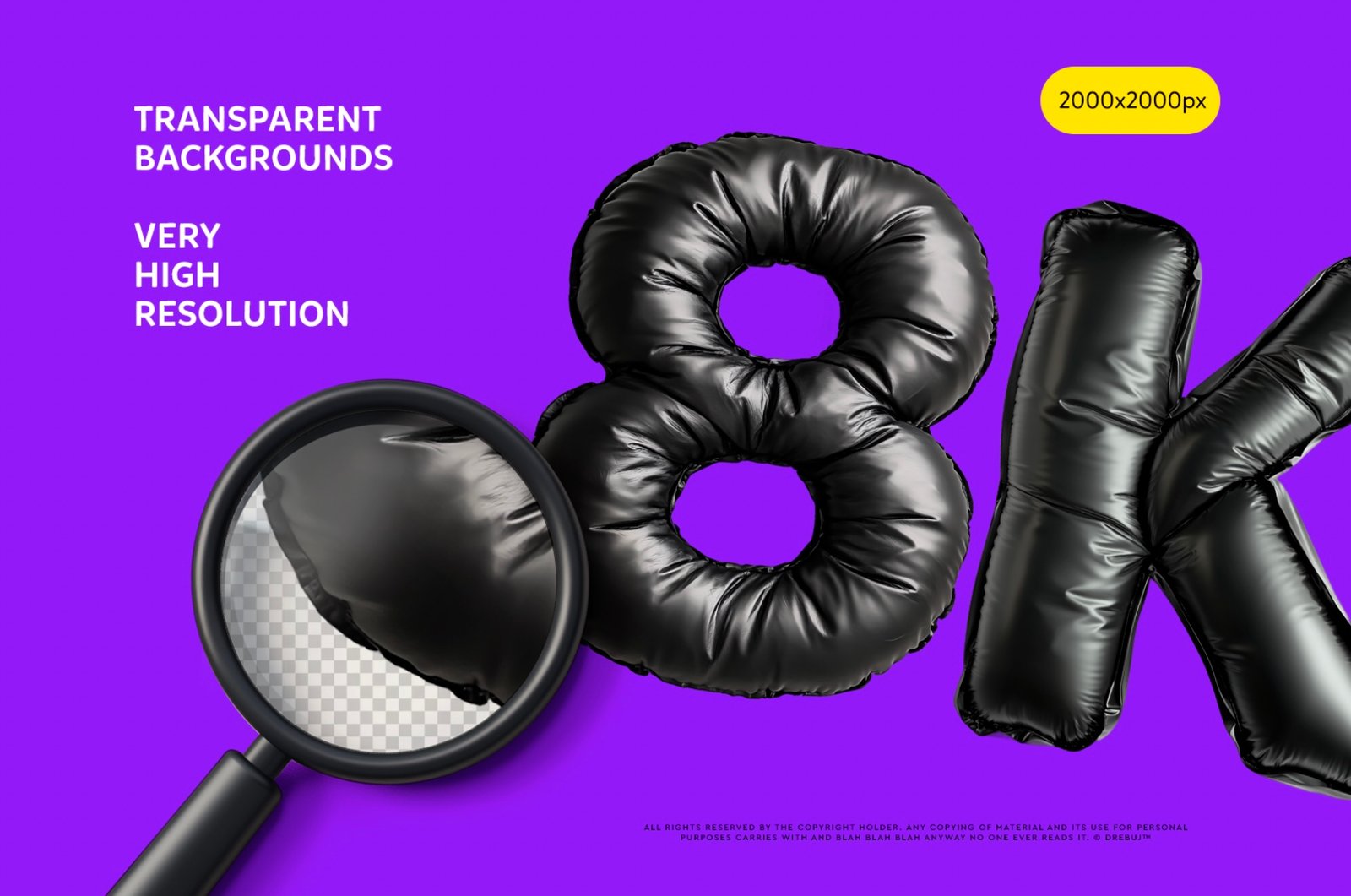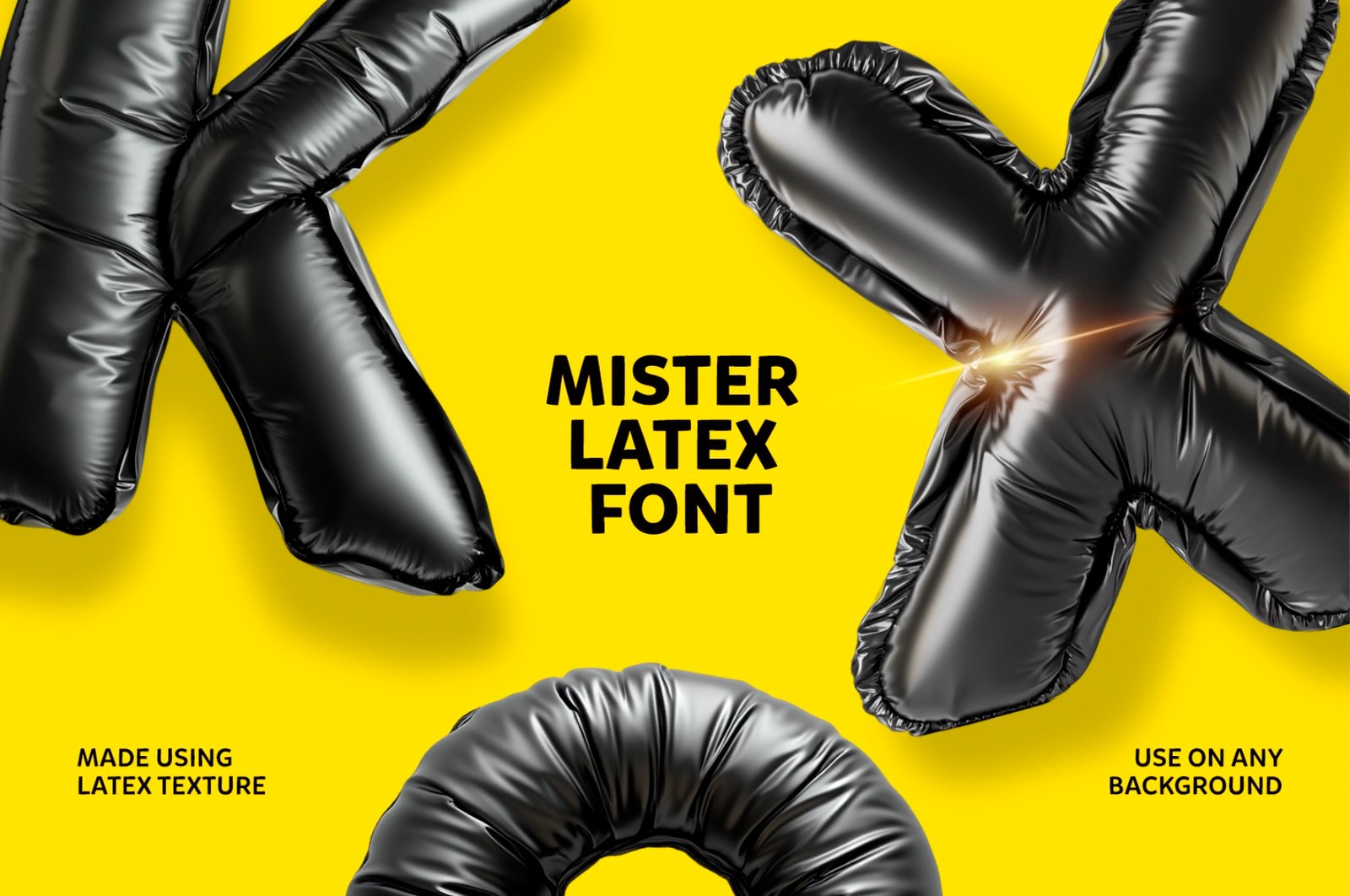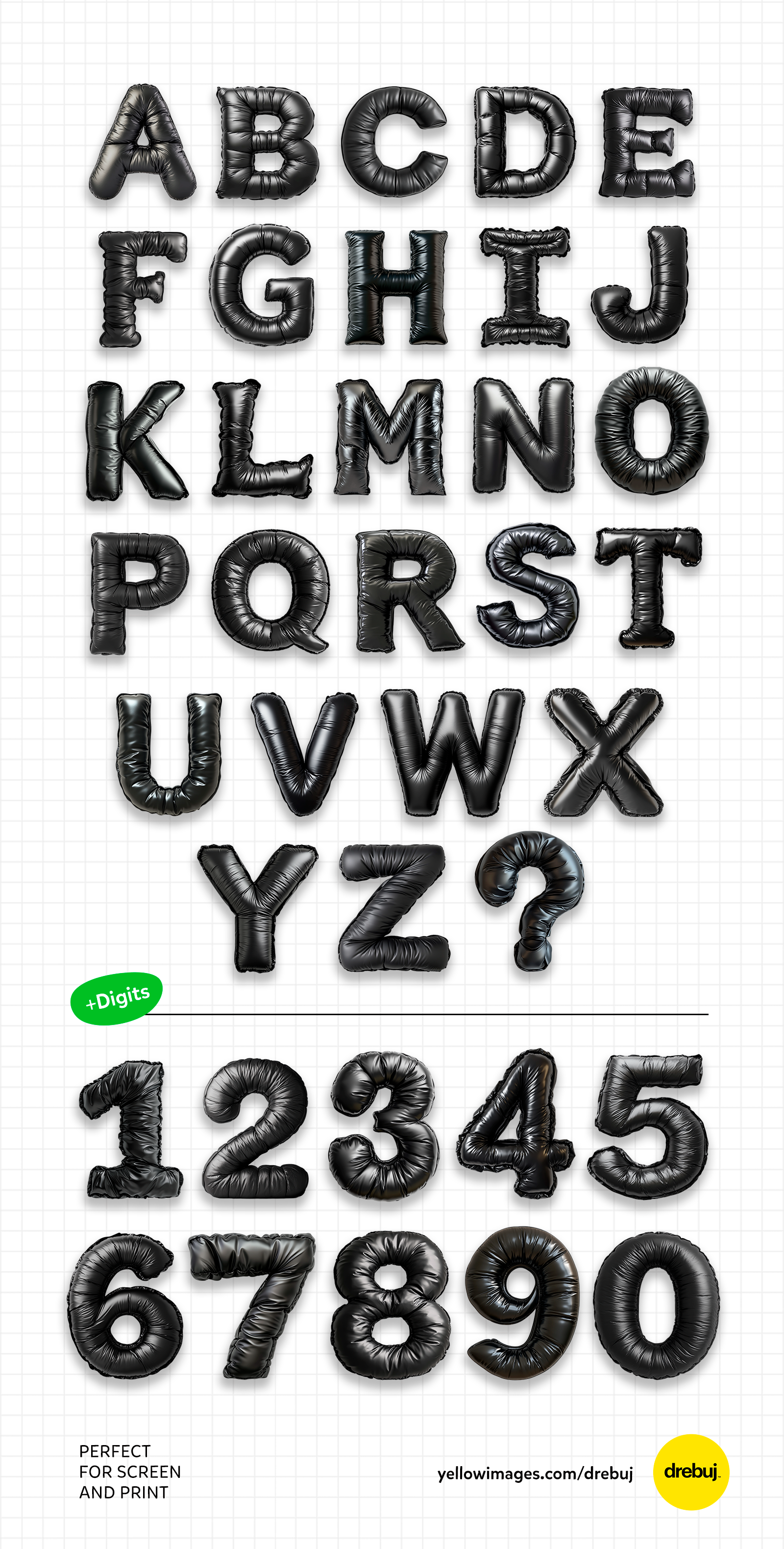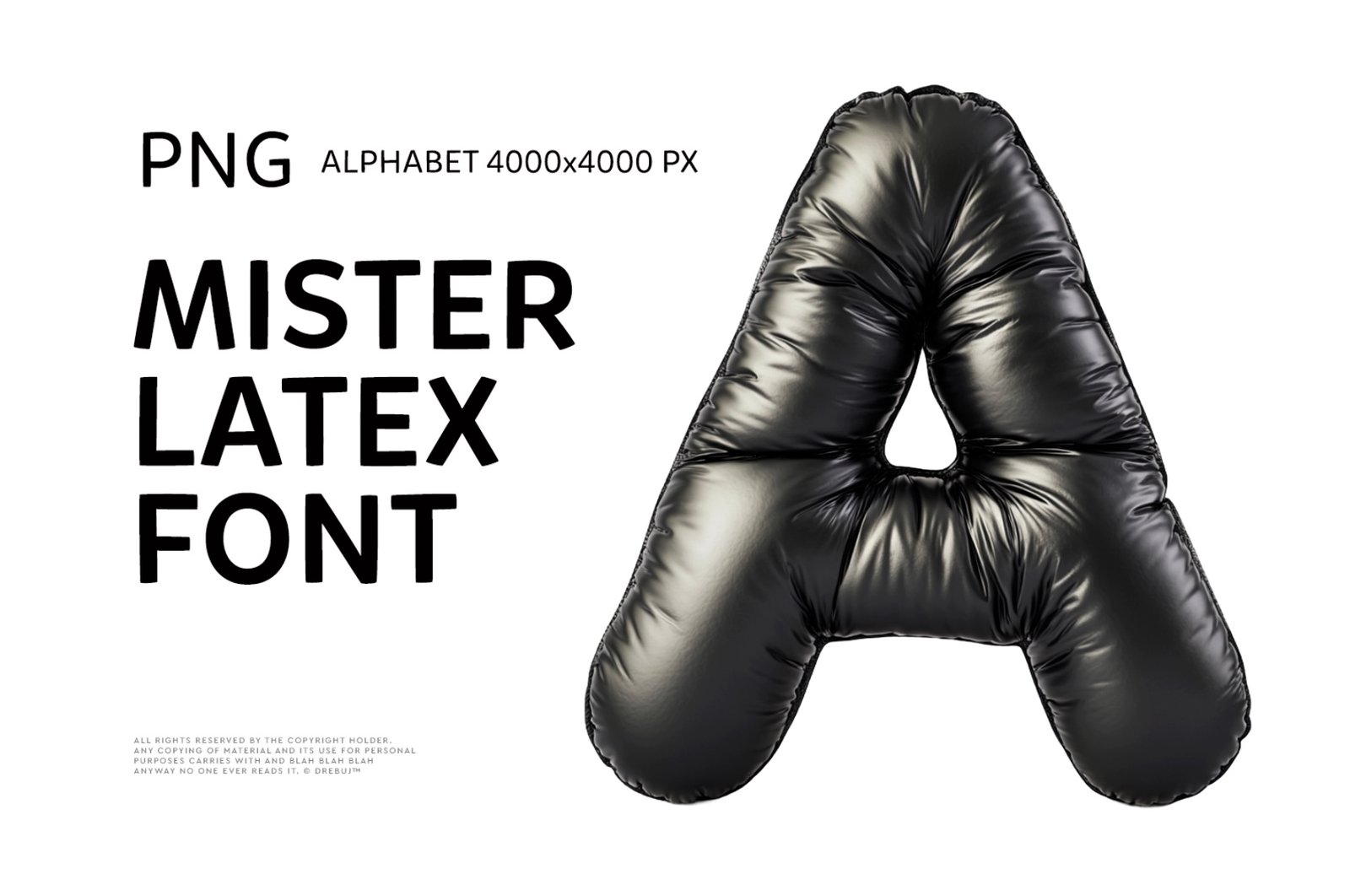
Mister Latex Font: Geometric 3D Black Plastic Alphabet PNG
An entire alphabet of Black Latex letters with transparent background.
THIS IS NOT A FONT. This is a very high-quality 3d PNG font of Black plastic latex texture letters.